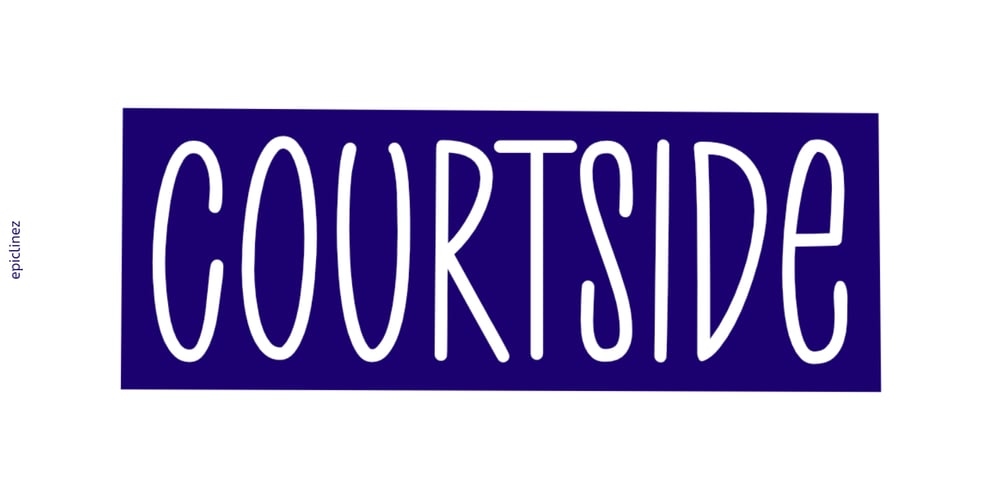
Courtside Font Family was designed by Aldy Sidik and published by Epiclinez. Courtside contains 1 styles and family package options. Courtside is a casual all caps handwritten font. It’s easy to read and it has a playful feel to it at the same time. Get inspired by its simplistic charm and use it to brighten up any creative projects